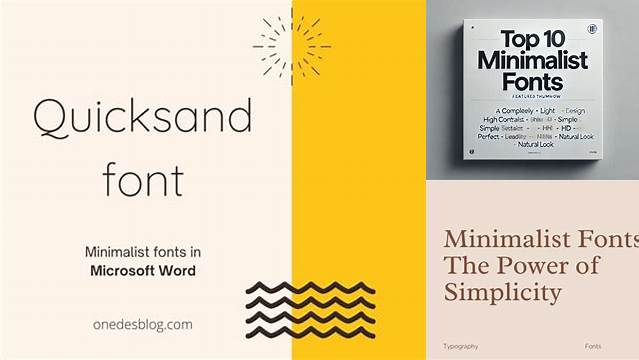
Minimalist Fonts In MS Word: A Complete Guide
Choosing the right font can dramatically impact the readability and overall aesthetic of your documents in Microsoft Word. When aiming for a clean, modern look, minimalist fonts are your best friend. They strip away unnecessary embellishments, focusing on clarity and simplicity. In this guide, we'll explore a variety of minimalist fonts you can use in MS Word, how to effectively use them, and tips for creating documents that are both professional and visually appealing. So, let's dive in, guys, and discover the world of minimalist typography in Word!
1. Understanding Minimalist Font Principles
When we talk about minimalist fonts, we're really talking about fonts that prioritize simplicity, clarity, and functionality. These fonts often feature clean lines, consistent stroke widths, and a lack of ornate serifs or decorative elements. The core idea behind minimalism in typography is to communicate the message effectively without distracting the reader with unnecessary visual clutter. This means focusing on the essential forms of the letters themselves, ensuring they are easily legible and aesthetically pleasing in their simplicity. Think about fonts that evoke a sense of modern sophistication – they are often sans-serif fonts, characterized by their lack of those little feet (serifs) at the end of strokes. This absence of serifs gives them a cleaner, more contemporary feel, perfect for documents and designs aiming for a minimalist aesthetic. Understanding these principles helps you select and use fonts that enhance readability and visual appeal, creating documents that are both professional and easy on the eyes.
2. The Importance of Choosing the Right Font
Choosing the right font goes beyond mere aesthetics; it significantly impacts how your message is received and understood. A well-chosen font can enhance readability, making your text more engaging and accessible. Conversely, a poorly chosen font can lead to eye strain, confusion, and a negative impression. Think about it – if your font is too decorative or difficult to read, people are less likely to engage with your content. For example, minimalist fonts are excellent for professional documents because they convey a sense of clarity and competence. On the other hand, a playful or overly stylized font might be better suited for a casual invitation or creative project. The right font can also reinforce the tone and style of your writing. A clean, minimalist font might suggest professionalism and efficiency, while a more traditional serif font could evoke a sense of authority and formality. Ultimately, the font you choose is a crucial element in your overall communication strategy, so it's worth taking the time to select one that aligns with your message and intended audience. Picking the right font is like choosing the right outfit for an occasion – it sets the tone and makes a statement!
3. Top Minimalist Sans-Serif Fonts for MS Word
Sans-serif fonts are the backbone of minimalist typography. They're clean, modern, and highly readable, making them perfect for a variety of documents. Some top contenders for minimalist sans-serif fonts in MS Word include Arial, a widely available and versatile option; Helvetica, known for its clean lines and neutral appearance; and Calibri, the default font in many versions of Word, appreciated for its soft, contemporary feel. But the world of sans-serif fonts is vast! You might also explore fonts like Open Sans, a popular choice for web and print due to its excellent legibility; Lato, which offers a balance of warmth and stability; and Montserrat, a geometric font that exudes modernity. Each of these fonts brings its unique flavor to the table, but they all share the core principles of minimalism: simplicity, clarity, and functionality. When choosing a font, consider the overall tone you want to convey and how the font will look in different sizes and contexts. Experimenting with different options can help you find the perfect match for your project.
4. Popular Serif Fonts with a Minimalist Touch
While sans-serif fonts often dominate the minimalist landscape, certain serif fonts also offer a clean and modern aesthetic. These fonts, characterized by the small strokes or "serifs" at the ends of their main strokes, can add a touch of elegance and formality while still maintaining a minimalist feel. Times New Roman, a classic and widely recognized serif font, can be used effectively in minimalist designs when paired with ample whitespace. Georgia is another excellent option, known for its readability on screens and its refined appearance. For a slightly more contemporary take, consider fonts like Merriweather or Lora, both designed for optimal readability in digital environments. The key to using serif fonts in a minimalist context is to choose fonts with clean, well-defined serifs and to use them sparingly. Overusing serif fonts can quickly make your document look cluttered or outdated. When used thoughtfully, however, they can add a subtle touch of sophistication and visual interest to your minimalist designs. Think of them as the carefully chosen accessories that complete an outfit!
5. Using Font Pairing for a Minimalist Look
Font pairing is the art of combining different fonts in a harmonious way, and it's a crucial skill for achieving a sophisticated minimalist look. The goal is to create visual interest and hierarchy without sacrificing clarity. A common approach is to pair a sans-serif font for headings with a serif font for body text, or vice versa. For example, you might pair Open Sans (sans-serif) with Merriweather (serif) or Lato (sans-serif) with Georgia (serif). This combination creates a subtle contrast that guides the reader's eye and enhances readability. When choosing fonts to pair, look for fonts with contrasting characteristics but similar moods. For instance, a bold sans-serif font might pair well with a lighter serif font. Avoid pairing fonts that are too similar, as this can create a monotonous look. Also, be careful not to use too many fonts in a single document; sticking to two or three fonts is generally a good rule of thumb for maintaining a clean and minimalist aesthetic. Font pairing is like crafting a perfect playlist – you want variety, but you also want everything to flow together seamlessly.
6. Understanding Font Weights and Styles
Font weights and styles play a significant role in creating visual hierarchy and emphasis in your documents. Font weight refers to the thickness of the font, ranging from light to bold, while font styles include variations like italic and oblique. In a minimalist design, these variations can be used strategically to highlight key information without resorting to overly decorative elements. For example, using a bold font weight for headings can make them stand out from the body text, while italicizing a word or phrase can add subtle emphasis. When working with font weights and styles, consistency is key. Choose a limited number of variations and use them consistently throughout your document to maintain a clean and professional look. Avoid using too many different weights or styles, as this can create visual clutter and detract from the minimalist aesthetic. Remember, the goal is to guide the reader's eye and make your message clear, not to overwhelm them with visual noise. Think of font weights and styles as the volume and tone of your voice – they can add nuance and emphasis to your message without changing the core content.
7. Font Size and Its Impact on Readability
Font size is a critical factor in readability, especially when working with minimalist fonts. A font that looks elegant and clean at one size might become difficult to read at another. Generally, a font size of 11 or 12 points is recommended for body text in documents, as this provides a good balance between readability and space efficiency. For headings, you'll want to use larger font sizes to create visual hierarchy and draw the reader's attention. However, be careful not to make headings too large, as this can disrupt the overall balance of the page. When choosing font sizes, consider the specific font you're using and the context in which it will be read. Some fonts may appear larger or smaller than others at the same point size. Also, think about the line height (the vertical space between lines of text), as this can significantly impact readability. Sufficient line height can make text feel less cramped and easier to follow. Font size is like the zoom level on a camera – you need to find the right magnification to capture the perfect shot.
8. Line Spacing and Paragraph Formatting
Line spacing, also known as leading, is the vertical space between lines of text, and it plays a crucial role in the readability and visual appeal of your document. In minimalist design, generous line spacing is often preferred, as it creates a sense of openness and prevents text from feeling cramped. A line spacing of 1.5 or double spacing is generally recommended for body text, as this provides ample space for the reader's eye to move between lines. Paragraph formatting also contributes to readability. Use clear paragraph breaks to divide your text into manageable chunks, and consider using a first-line indent or extra space between paragraphs to visually separate them. In a minimalist style, avoid overly complex formatting. Keep your paragraphs concise and focused, and use whitespace strategically to create visual breathing room. Remember, the goal is to make your text easy to read and understand, so prioritize clarity and simplicity in your formatting choices. Think of line spacing as the rhythm of your text – it sets the pace and guides the reader's eye.
9. Color Considerations for Minimalist Typography
Color plays a subtle but significant role in minimalist typography. While the focus is on simplicity, thoughtful use of color can enhance visual appeal and readability. Black text on a white background is the classic and most legible combination, but you can also experiment with other neutral colors, such as dark grays or blues, for a softer look. When using color, consistency is key. Choose a limited color palette and use it consistently throughout your document. Avoid using too many bright or contrasting colors, as this can be visually distracting and detract from the minimalist aesthetic. If you want to highlight specific elements, consider using a subtle accent color, such as a muted blue or green. However, use color sparingly and strategically. In minimalist design, less is often more. The goal is to create a clean and uncluttered look, so let the typography speak for itself. Think of color as the seasoning in a dish – a little can enhance the flavor, but too much can overwhelm the palate.
10. The Role of Whitespace in Minimalist Design
Whitespace, also known as negative space, is a cornerstone of minimalist design. It refers to the empty space around text and other elements on a page, and it plays a crucial role in readability and visual balance. Ample whitespace makes your text feel less cramped and easier to read, and it also helps to draw attention to the important elements on the page. In a minimalist design, whitespace is not just an absence of content; it's an active element that contributes to the overall aesthetic. Use generous margins, line spacing, and paragraph breaks to create visual breathing room. Avoid filling every available space with text or graphics. Instead, let the whitespace guide the reader's eye and create a sense of calm and clarity. Think of whitespace as the silent pauses in a conversation – they give the listener time to process what's being said and make the message more impactful. When you are using minimalist fonts in your documents, use whitespace to enhance the presentation.
11. Minimalist Fonts for Headings and Titles
Choosing the right font for headings and titles is crucial for creating visual hierarchy and guiding the reader through your document. In minimalist design, headings should be clear, concise, and visually distinct from the body text. Sans-serif fonts are often a good choice for headings, as they tend to have a clean and modern look. Consider using a slightly bolder font weight or a larger font size to make your headings stand out. Some popular minimalist fonts for headings include Arial Bold, Helvetica Neue, and Open Sans Bold. However, don't be afraid to experiment with other options to find a font that complements your body text and overall design. When choosing a font for headings, think about the tone you want to convey. A bold, geometric font might suggest confidence and authority, while a lighter, more elegant font could evoke a sense of sophistication and refinement. The headings are like signposts that direct the reader's journey through your document – make sure they're clear, visible, and inviting.
12. Minimalist Fonts for Body Text and Paragraphs
For body text and paragraphs, readability is paramount. The font you choose should be easy on the eyes and allow the reader to comfortably engage with your content. Minimalist fonts with clean, simple letterforms are ideal for body text, as they minimize distractions and maximize clarity. Some excellent options include Open Sans, Lato, and Roboto. These fonts are designed for optimal readability in both print and digital environments. When choosing a font for body text, consider the line height and letter spacing. Sufficient line height (the vertical space between lines of text) is essential for preventing the text from feeling cramped. Also, pay attention to the letter spacing, as overly tight or loose spacing can make the text difficult to read. The body text is the heart of your document – it's where your message is conveyed, so choose a font that supports and enhances your writing.
13. Combining Minimalist Fonts with Images
Images can add visual interest and enhance the message of your document, but it's important to integrate them seamlessly with your minimalist typography. When combining fonts with images, consider the overall style and tone of your design. Choose images that complement your font choices and avoid using overly busy or distracting images. Whitespace is particularly important when working with images. Make sure there is enough space around your images and text to prevent the page from feeling cluttered. Use captions or labels to clearly identify the images, and choose a font that is consistent with the rest of your document. In a minimalist design, images should be used sparingly and strategically. The goal is to enhance the text, not to overwhelm it. Think of images as the supporting cast in a play – they should complement the main actors (the words) and help to tell the story.
14. Minimalist Fonts for Resumes and CVs
A resume or CV is your first impression on a potential employer, so it's crucial to make it look professional and polished. Minimalist fonts are an excellent choice for resumes, as they convey a sense of clarity, competence, and attention to detail. When choosing fonts for your resume, prioritize readability and professionalism. Sans-serif fonts like Arial, Helvetica, and Open Sans are all solid choices. Use a consistent font throughout your resume, and avoid using overly decorative or stylized fonts. Pay attention to font size and spacing. Your name and headings should be slightly larger and bolder than the body text, but don't overdo it. Use whitespace effectively to create a clean and uncluttered look. A well-designed resume with minimalist fonts can help you stand out from the competition and make a positive first impression. Your resume is your personal brand – make sure it reflects your professionalism and attention to detail.
15. Minimalist Fonts for Business Documents
In the business world, clarity and professionalism are key. Minimalist fonts are ideal for business documents such as reports, proposals, and presentations, as they convey a sense of competence and efficiency. When choosing fonts for business documents, prioritize readability and clarity. Sans-serif fonts are often a good choice for body text, while slightly bolder or larger fonts can be used for headings. Some popular minimalist fonts for business documents include Arial, Calibri, and Open Sans. Maintain consistency in font choice, size, and style throughout your document. Use whitespace effectively to create a clean and uncluttered look. Avoid using overly decorative or stylized fonts, as these can detract from the professional tone. Your business documents are a reflection of your company's brand – make sure they convey the right message.
16. Creating a Minimalist Style Guide for Your Brand
A style guide is a set of guidelines that defines your brand's visual identity, including font choices, colors, and overall design aesthetic. Creating a minimalist style guide can help you maintain consistency and professionalism across all your marketing materials and communications. Your style guide should specify the fonts you'll use for headings, body text, and other elements. It should also define your color palette and any other design elements, such as logos and images. When creating a minimalist style guide, prioritize clarity and simplicity. Choose a limited number of fonts and colors, and use them consistently. Define clear rules for formatting text, using whitespace, and incorporating images. A well-defined style guide will ensure that your brand has a consistent and professional look, no matter what the medium. Your style guide is the blueprint for your brand's visual identity – it ensures that everything you create is consistent and on-brand.
17. Common Mistakes to Avoid in Minimalist Typography
Even with the best intentions, it's easy to make mistakes in minimalist typography. One common mistake is using too many different fonts. Sticking to two or three fonts is generally a good rule of thumb for maintaining a clean and consistent look. Another mistake is using fonts that are too similar. If your fonts are too alike, they won't create enough visual contrast, and your document may look monotonous. Overusing bold or italic styles can also be a problem. While these styles can be effective for emphasis, using them too frequently can make your text look cluttered and distracting. Insufficient whitespace is another common mistake. Whitespace is essential for readability and visual balance, so make sure you're using generous margins, line spacing, and paragraph breaks. Avoiding these common mistakes will help you create minimalist designs that are both effective and visually appealing. Minimalist typography is about making deliberate choices – avoid these mistakes to keep your design clean and impactful.
18. Minimalist Web Fonts for MS Word (Using Images)
While MS Word primarily uses fonts installed on your computer, you can incorporate web fonts into your documents by using images of the text. This approach allows you to use a wider variety of minimalist fonts that might not be available as standard Word fonts. To do this, you'll need to use a graphics editor (like Adobe Photoshop or GIMP) to create images of your text using the desired web font. Save these images as PNG files with a transparent background. Then, you can insert these images into your Word document and position them as needed. Keep in mind that this method treats the text as an image, so it won't be editable directly in Word. Also, be mindful of the image size and resolution to ensure that the text remains crisp and clear. Using images of web fonts can expand your typographic options in Word, but it's important to use this technique judiciously and prioritize readability. This method is like adding custom artwork to your document – it can be visually appealing, but it requires extra care and attention.
19. Converting Text to Outlines for Minimalist Designs
Converting text to outlines, also known as creating vector graphics from text, can be a useful technique for minimalist designs. This approach allows you to manipulate the individual letterforms as shapes, giving you more control over their appearance. To convert text to outlines, you'll typically need to use a vector graphics editor like Adobe Illustrator or Inkscape. Once the text is converted to outlines, you can modify the shapes, adjust the spacing, and even create custom typographic effects. However, keep in mind that once text is converted to outlines, it's no longer editable as text. This technique is best used for headings, logos, or other design elements where the text is not likely to change. Converting text to outlines can be a powerful tool for creating unique minimalist designs, but it's important to use it strategically and with a clear purpose. This method is like sculpting with letters – it gives you ultimate control over the form, but it also requires a different skillset.
20. Minimalist Fonts for Different Document Types
The best minimalist font for a document often depends on the type of document you're creating. For formal documents like reports and proposals, a clean and professional sans-serif font like Arial or Calibri is often a good choice. For resumes and CVs, readability and clarity are paramount, so fonts like Open Sans or Lato are excellent options. For creative documents like brochures or newsletters, you might have more flexibility to experiment with different fonts, but it's still important to maintain a minimalist aesthetic. When choosing fonts for different document types, consider the purpose of the document and the intended audience. A font that works well for one type of document might not be suitable for another. The key is to choose fonts that support your message and enhance the overall design. The choice of minimalist fonts is like choosing the right tool for the job – each tool has its strengths and is best suited for a specific task.
21. Exploring Geometric Sans-Serif Fonts
Geometric sans-serif fonts are a subcategory of sans-serif fonts characterized by their clean, geometric shapes and precise construction. These fonts often feature perfect circles, squares, and triangles as the basis for their letterforms, giving them a modern and technical appearance. Popular geometric sans-serif fonts include Futura, Montserrat, and Avenir. These fonts are excellent choices for minimalist designs, as their clean lines and simple forms align perfectly with the minimalist aesthetic. Geometric fonts are often used for headings and logos, but they can also be used effectively for body text, especially in shorter documents or online environments. When using geometric fonts, pay attention to the letter spacing and line height, as these fonts can sometimes appear a bit tight. Geometric fonts are like the architectural blueprints of typography – they're precise, structured, and visually striking.
22. The Benefits of Using Open Source Minimalist Fonts
Open source fonts offer a number of advantages for minimalist design. They're typically free to use, even for commercial projects, which can be a significant cost savings. Open source fonts are also often high-quality and well-designed, with many options available that align with the minimalist aesthetic. Furthermore, open source fonts are often designed with web use in mind, making them ideal for online documents and websites. Some popular open source minimalist fonts include Open Sans, Lato, and Roboto, all of which are available through Google Fonts. When using open source fonts, it's important to check the license terms to ensure that you're complying with the requirements. However, in general, open source fonts offer a great way to access a wide range of high-quality minimalist typefaces without breaking the bank. Open source fonts are like the community-supported software of the typography world – they're free, versatile, and constantly evolving.
23. Tips for Improving Font Readability in MS Word
Readability is a crucial factor in any document, but it's especially important in minimalist design, where clarity is paramount. There are several things you can do to improve font readability in MS Word. Choose a font that is designed for readability, such as Open Sans, Lato, or Arial. Use an appropriate font size, typically 11 or 12 points for body text. Ensure sufficient line height, typically 1.5 or double spacing. Use clear paragraph breaks to divide your text into manageable chunks. Use bold or italic styles sparingly for emphasis. Pay attention to color contrast, using black text on a white background or a similar high-contrast combination. By following these tips, you can ensure that your documents are easy to read and engaging. Readability is like the clarity of your voice – it ensures that your message is heard and understood.
24. How to Embed Fonts in Your Word Document
Embedding fonts in your Word document ensures that your chosen fonts will display correctly even on computers that don't have those fonts installed. This is particularly important when sharing your document with others or submitting it for printing. To embed fonts in MS Word, go to File > Options > Save. Check the box that says "Embed fonts in the file" and choose whether to embed only the characters used in the document or all characters in the font. Embedding only the characters used in the document will result in a smaller file size, but it may limit your ability to edit the document on other computers. Embedding all characters will ensure that your document looks exactly as intended, but it will increase the file size. Embedding fonts is like packing your own utensils for a picnic – it ensures that you have the right tools for the job, no matter where you go.
25. Minimalist Fonts and Accessibility Considerations
Accessibility is an important consideration in minimalist design. Choosing fonts that are accessible to people with visual impairments or other disabilities is crucial for creating inclusive documents. When selecting fonts, prioritize readability and clarity. Sans-serif fonts like Arial, Helvetica, and Open Sans are generally considered more accessible than serif fonts. Use an appropriate font size, typically 12 points or larger for body text. Ensure sufficient line height and letter spacing. Avoid using overly decorative or stylized fonts, as these can be difficult to read. Use sufficient color contrast between the text and background. There are also tools available to check the accessibility of your documents, such as the Accessibility Checker in MS Word. Designing with accessibility in mind ensures that your message is clear and understandable to everyone. Accessibility is like building ramps and elevators – it makes your design usable for a wider range of people.
26. Exploring Different Minimalist Font Styles (Light, Bold, Italic)
Minimalist fonts often come in a variety of styles, including light, regular, bold, and italic. Each style serves a different purpose in your design. Light fonts can create a sense of airiness and elegance, while bold fonts can add emphasis and visual weight. Italic fonts are useful for highlighting specific words or phrases, but they should be used sparingly. When using different font styles, consistency is key. Choose a limited number of styles and use them consistently throughout your document. Avoid overusing bold or italic styles, as this can make your text look cluttered. The different minimalist font styles are like the different instruments in an orchestra – each one contributes a unique sound, but they need to work together in harmony.
27. How to Choose the Best Minimalist Font for Your Project
Choosing the best minimalist font for your project depends on several factors, including the purpose of the document, the intended audience, and your overall design aesthetic. Start by considering the tone you want to convey. Do you want your document to feel professional and authoritative, or more casual and friendly? Sans-serif fonts are often a good choice for professional documents, while serif fonts can add a touch of elegance and formality. Think about the readability of the font. Choose a font that is easy on the eyes and allows the reader to comfortably engage with your content. Consider the font size and spacing. A font that looks elegant at one size might become difficult to read at another. Experiment with different fonts and styles until you find the perfect match for your project. Choosing the right minimalist font is like finding the perfect ingredient for a recipe – it can make all the difference in the final result.
28. Using Custom Minimalist Fonts in MS Word
While MS Word comes with a variety of built-in fonts, you can also use custom minimalist fonts in your documents. To install a custom font, download the font file (usually in .ttf or .otf format) and double-click it. Then, click the "Install" button. Once the font is installed, it will be available in MS Word and other applications. When using custom fonts, be mindful of licensing restrictions. Some fonts may be free to use for personal projects but require a commercial license for business use. Also, consider embedding custom fonts in your Word document to ensure that they display correctly on other computers. Using custom minimalist fonts can add a unique touch to your documents, but it's important to use them responsibly. Custom fonts are like adding your personal signature to a document – they can make it unique and memorable.
29. Minimalist Typography Trends to Watch
Typography trends are constantly evolving, and there are several minimalist typography trends to watch. One trend is the use of geometric sans-serif fonts, which offer a clean and modern aesthetic. Another trend is the use of variable fonts, which allow you to adjust font weights and styles with greater precision. The use of bold and oversized typography is also becoming increasingly popular, as is the use of whitespace to create visual impact. Keeping up with typography trends can help you create designs that are fresh and contemporary. However, it's also important to stay true to the principles of minimalist design, prioritizing clarity and readability above all else. Typography trends are like fashion trends – they can be fun to explore, but it's important to choose what works best for your individual style.
30. The Future of Minimalist Fonts in Document Design
The future of minimalist fonts in document design looks bright. As technology evolves and design sensibilities change, minimalist typography is likely to remain a popular choice for its clarity, simplicity, and timeless appeal. We can expect to see continued innovation in font design, with new minimalist typefaces emerging that offer even greater versatility and expressiveness. The increasing emphasis on accessibility will also drive the development of fonts that are optimized for readability and inclusivity. Furthermore, the integration of web fonts into document design will become more seamless, allowing designers to use a wider range of minimalist fonts in their projects. The future of minimalist fonts is about combining tradition with innovation, creating designs that are both beautiful and functional. The future of minimalist fonts is like the evolution of language – it's constantly changing and adapting to meet the needs of communication.